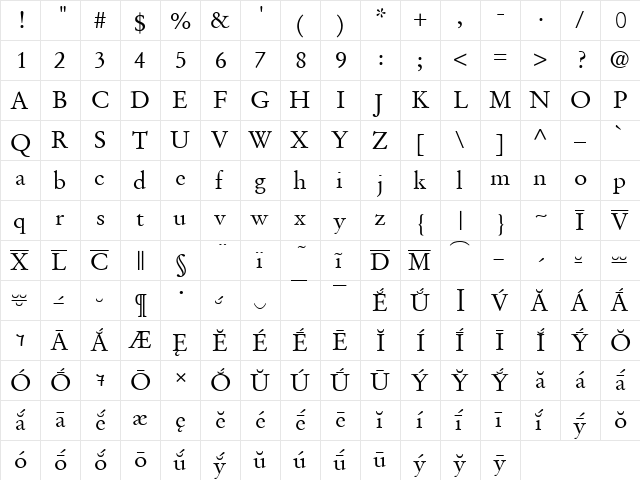
GaramondLatin Regular
Design Context for GaramondLatin Typeface
GaramondLatin is a composed and adaptable typeface that performs quietly and consistently across a wide range of design contexts.